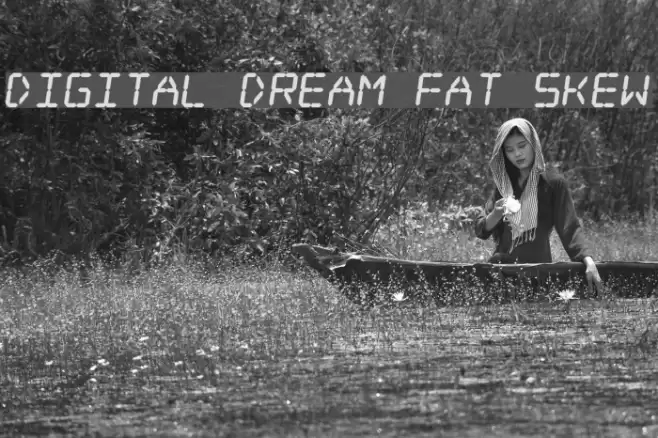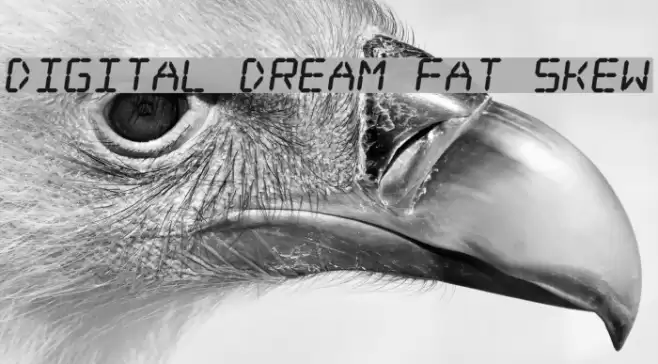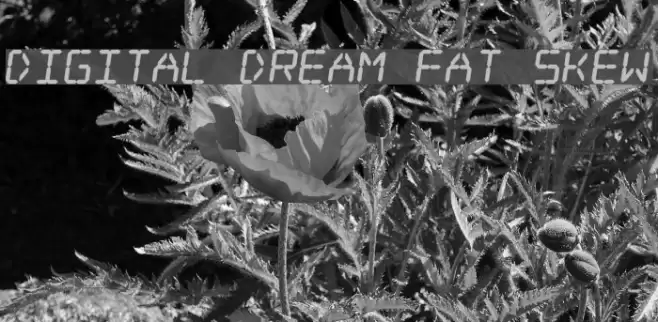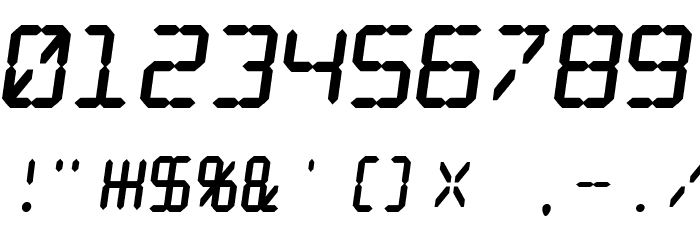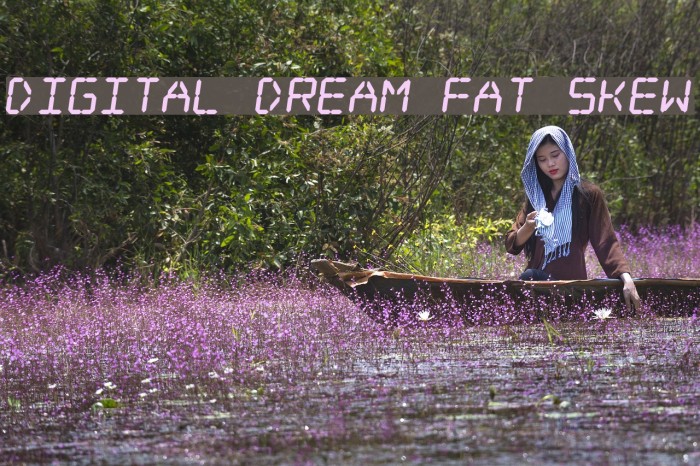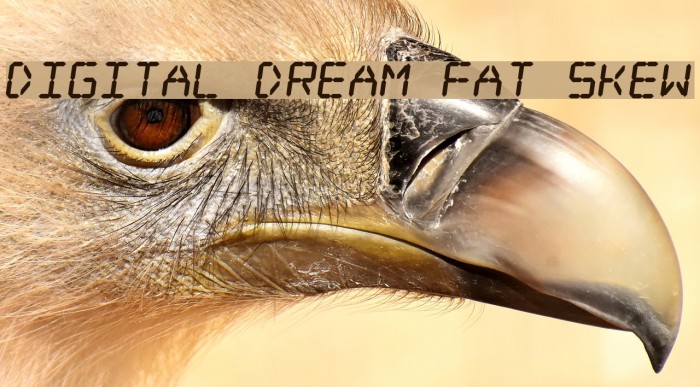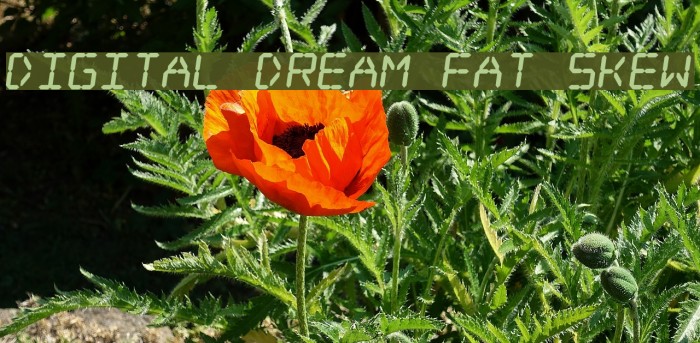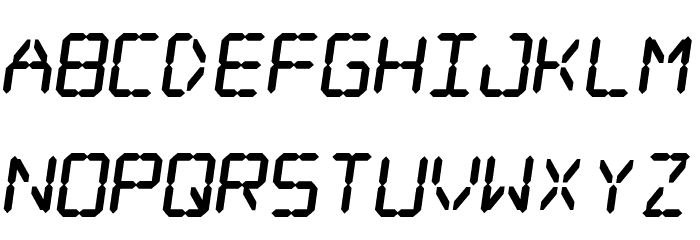
Digital dream Fat Skew Font
Digital dream Fat Skew Description
This font features a futuristic, digital appearance reminiscent of LED or LCD displays. The characters are composed of geometric, angular shapes with a consistent stroke width, giving it a bold and impactful look. The skewed design adds a dynamic and modern touch, making it stand out in digital and tech-related contexts. The uppercase and lowercase letters maintain a uniform style, while the numerals and special characters integrate seamlessly, enhancing its versatility. The font's distinct style is ideal for projects that require a tech-savvy or digital aesthetic.
A futuristic, skewed font with a digital, geometric style from Futuristic fonts.
- Proposed Projects: Ideal for digital displays, tech branding, video game interfaces, and futuristic design projects.
- Use Case: Headlines, Logos, Digital displays